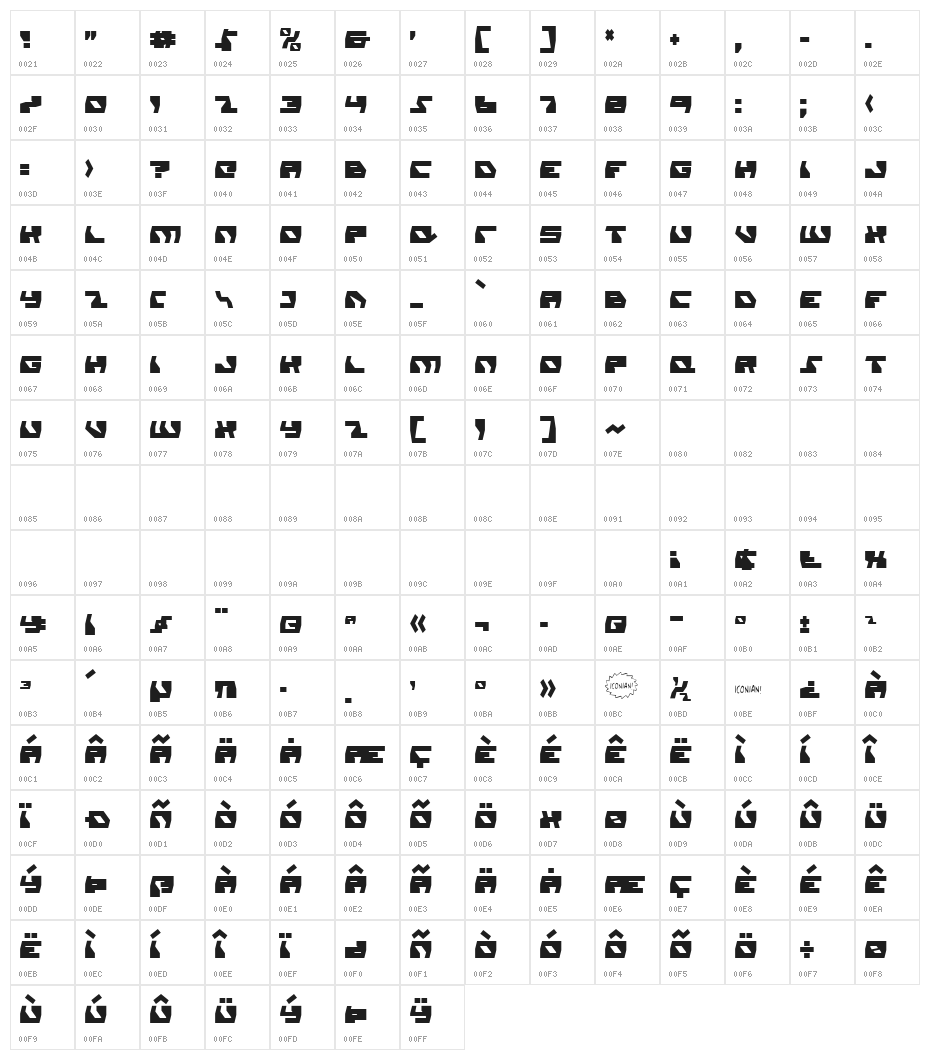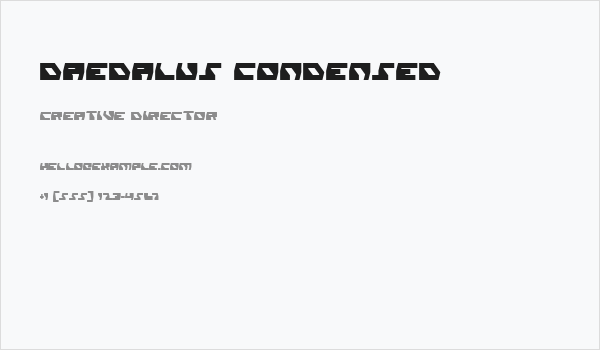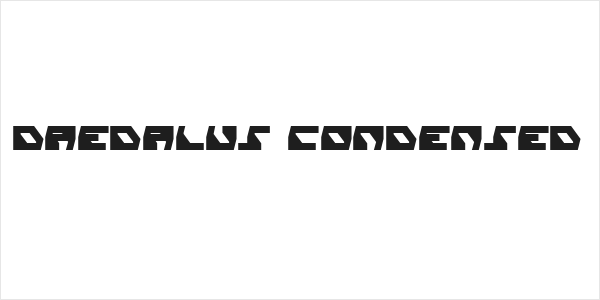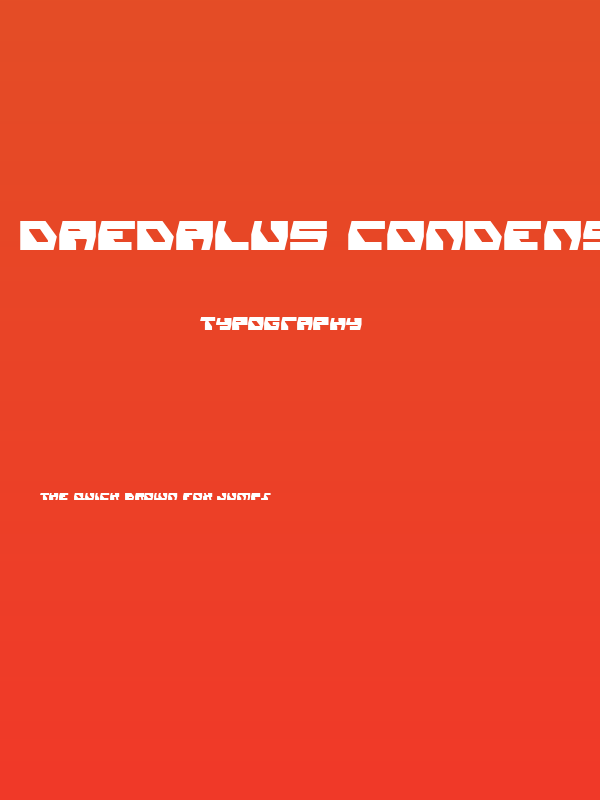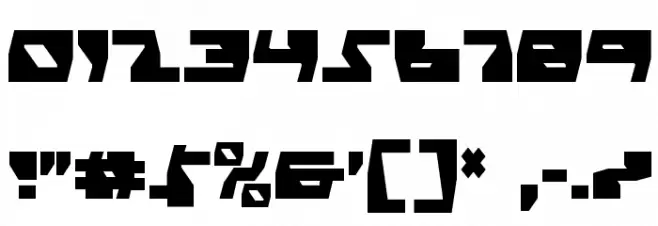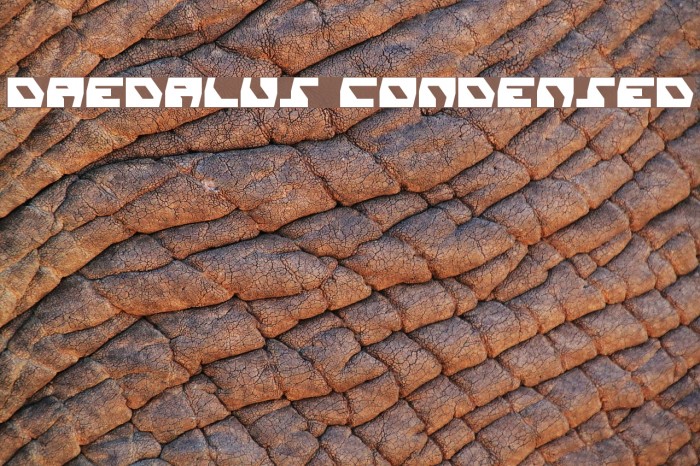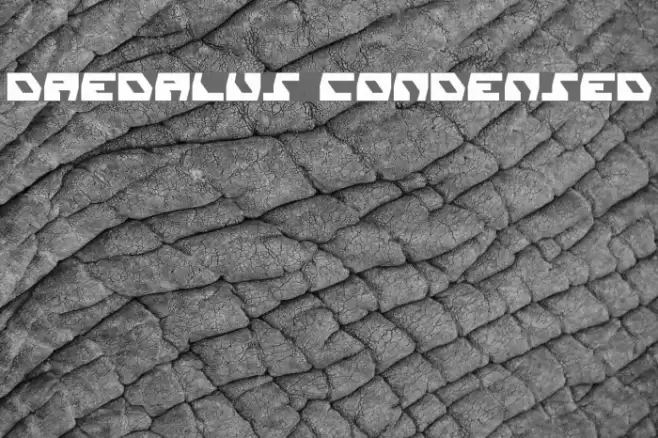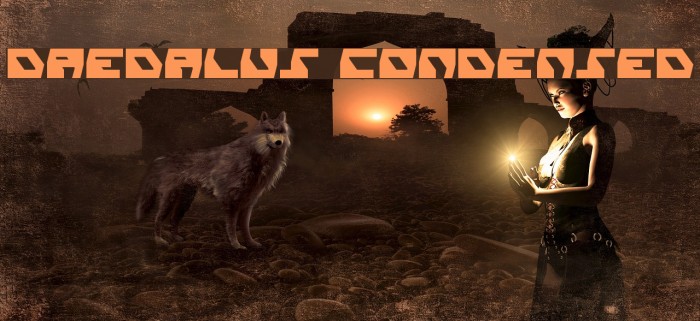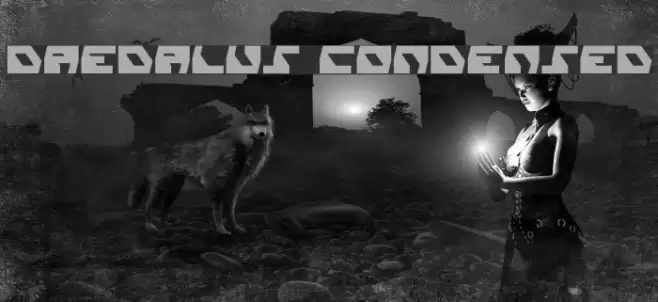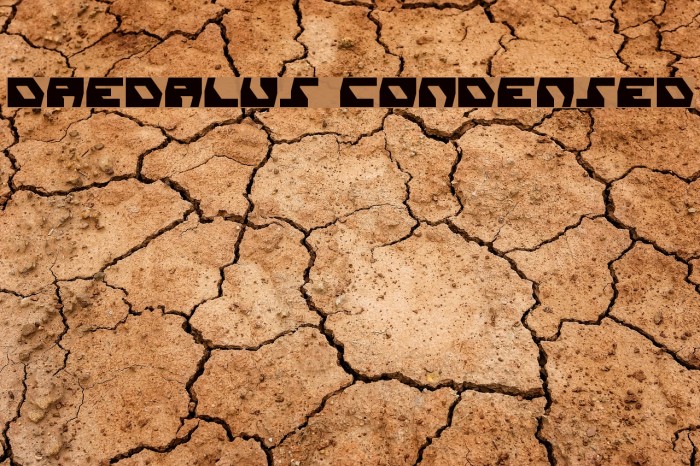
Daedalus Condensed Font
| 全体的なスタイル | Futuristic |
| おすすめプロジェクト | Ideal for sci-fi themed designs, video game titles, posters, and branding that requires a modern and edgy appearance. |